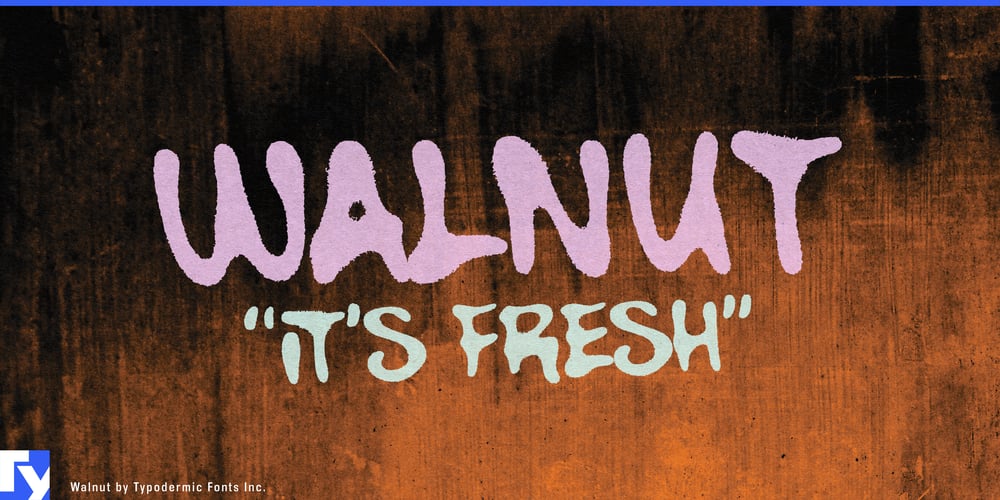
Walnut Font Family was designed by Ray Larabie and published by Typodermic. Walnut contains 1 styles and family package options. Walnut is rebellion in font form. This graffiti-inspired creation brings the raw energy of street art directly to your designs, transforming bland surfaces into vibrant canvases of expression. With its gritty, spray-painted aesthetic, Walnut injects an undeniable edge into every project it touches.Imagine letterforms that look like they’ve just leapt off a brick wall, still dripping with attitude and defiance. That’s Walnut. It’s the perfect accomplice for designs that need to break rules and challenge conventions. From edgy brand identities to album artwork that screams for attention, Walnut ensures your message doesn’t just speak—it shouts. But Walnut’s true genius lies in its unpredictability. Thanks to OpenType ligature support, this typeface creates custom letter combinations that mimic the spontaneous flow of a seasoned street artist. Each character possesses its own distinct personality, allowing you to craft headlines and logos that captivate and command attention with authentic urban flair.This typographic rebel doesn’t confine itself to a single territory, either. Walnut speaks the language of the streets across continents, supporting a vast array of Latin-based European writing systems. From the fjords of Norway to the bustling markets of Indonesia, Walnut’s message resonates loud and clear. It effortlessly adapts to tongues as diverse as Afrikaans, Lithuanian, and Swahili, ensuring your urban-inspired designs make an impact worldwide.Why settle for polite typography when you can unleash Walnut’s raw power? It’s time to break free from the confines of conventional design. Grab a can of Walnut, and watch as it transforms your work into a bold statement that demands to be seen, heard, and felt. The streets are calling—answer with Walnut.